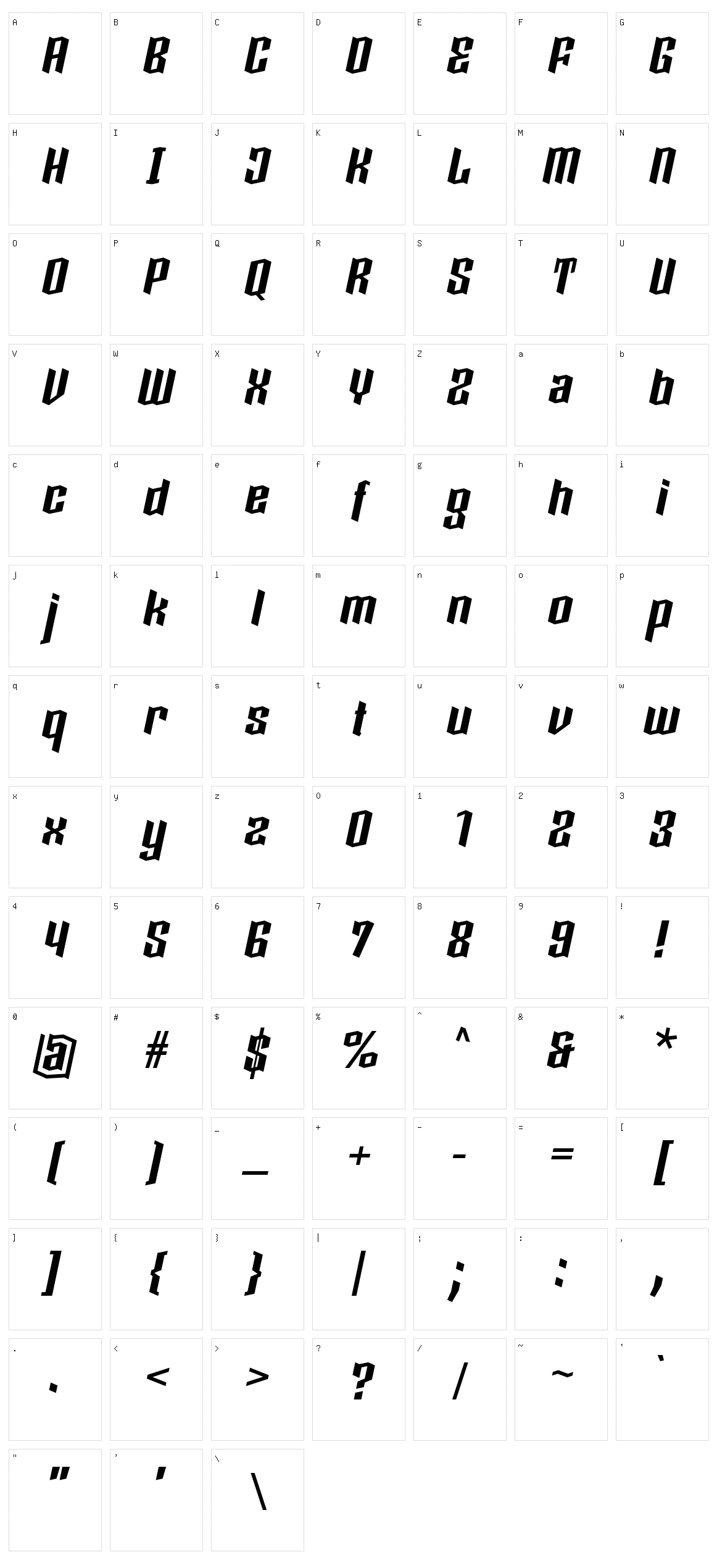
Boxise
Designed by: 7NTypes
Description: The free font Boxise is carefully designed by 7NTypes, showcasing a thoughtful balance of creativity and usability and belongs to the Gothic font family. When you download the ZIP file, it contains only 10.86 KB of font files, making it lightweight and quick to download. Please review the license details below to understand permitted usage and distribution rights. If license information is not available, we recommend using this font for personal projects only or contacting the author directly for commercial usage permissions.